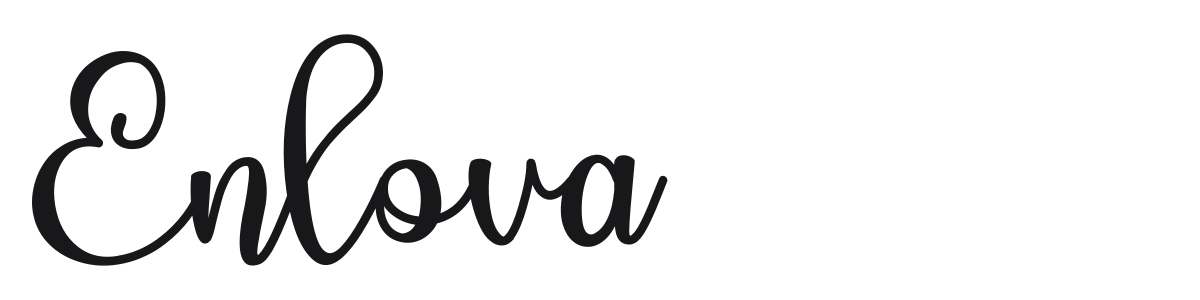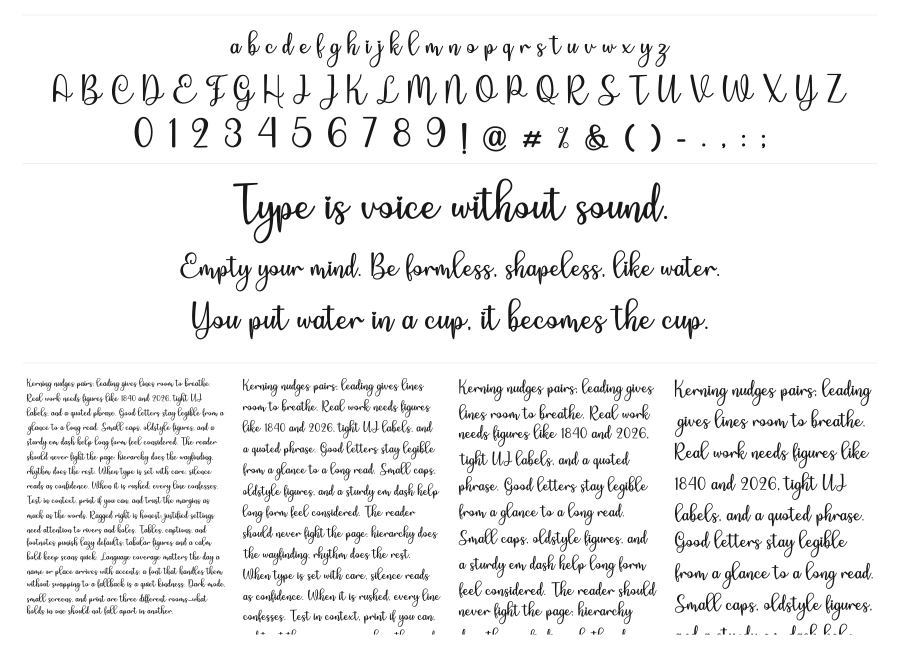
Enlova
by Eknoji Studio · Website
Enlova is a flowing casual script with smooth, looped connections and a warm handwritten feel. Generous descenders, soft curves, and small decorative accents like a heart dot give it a lighthearted, contemporary personality. It suits branding, packaging, and social content where a friendly, personal touch is needed.